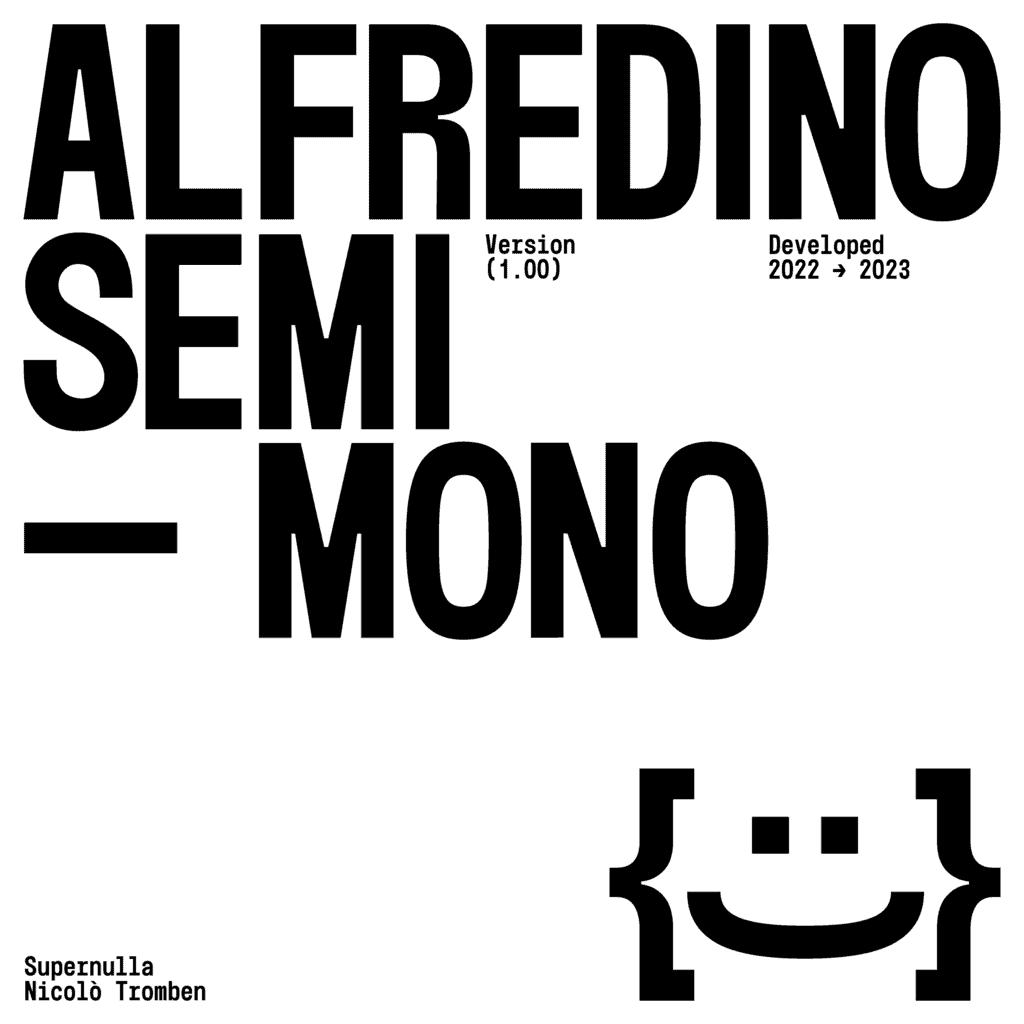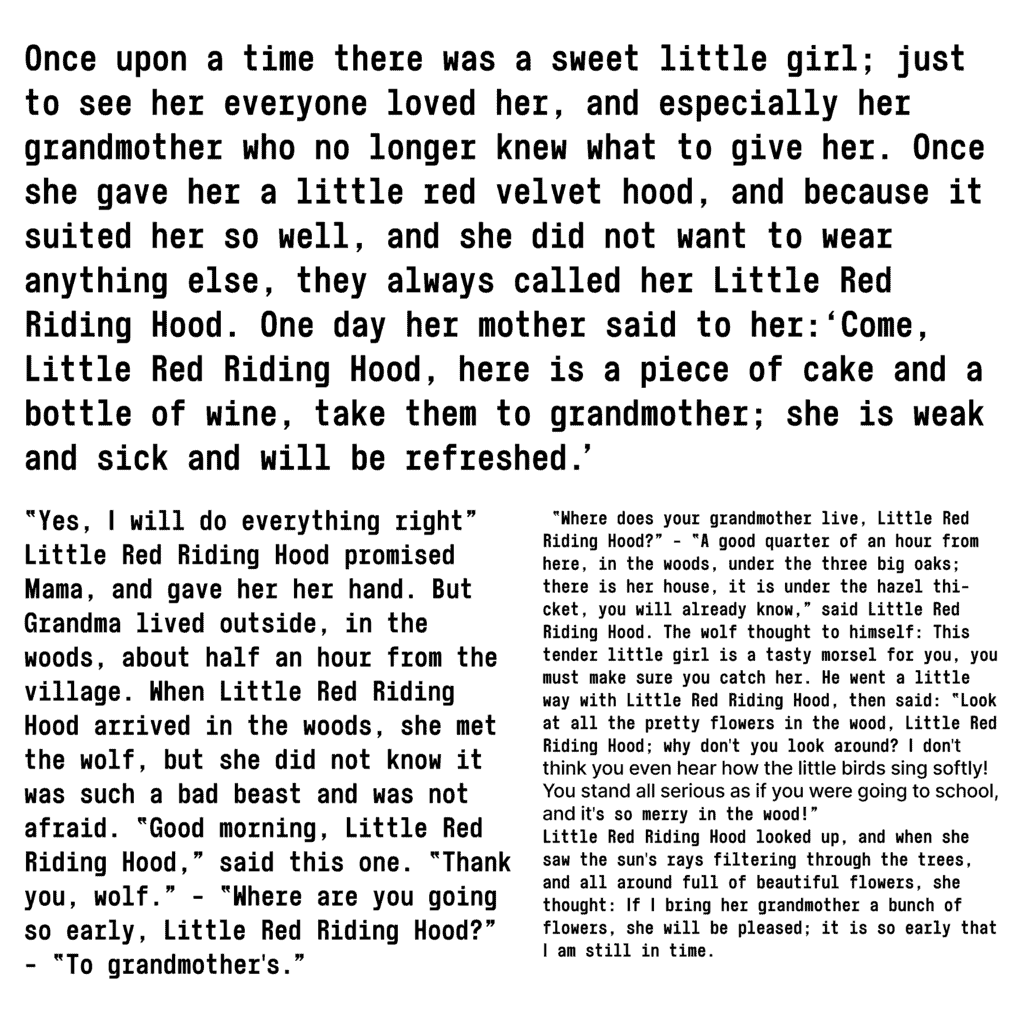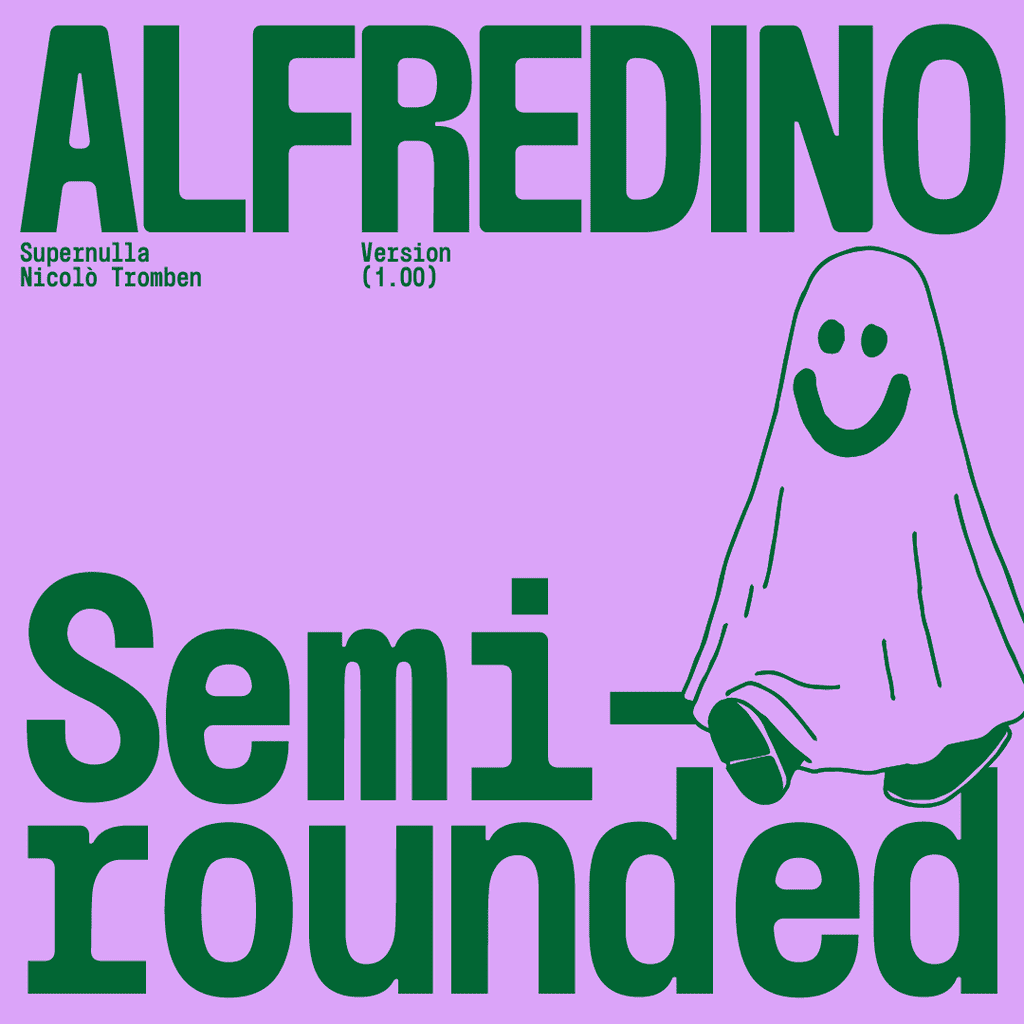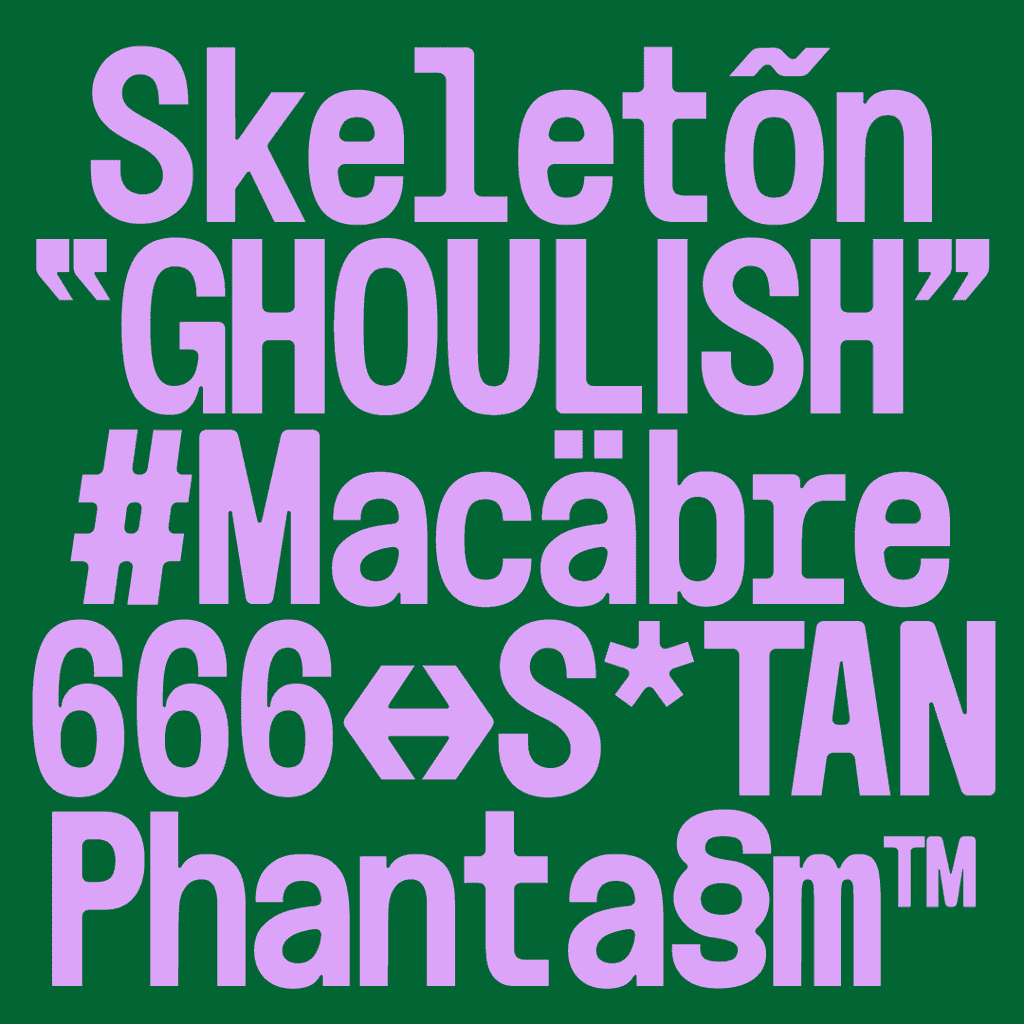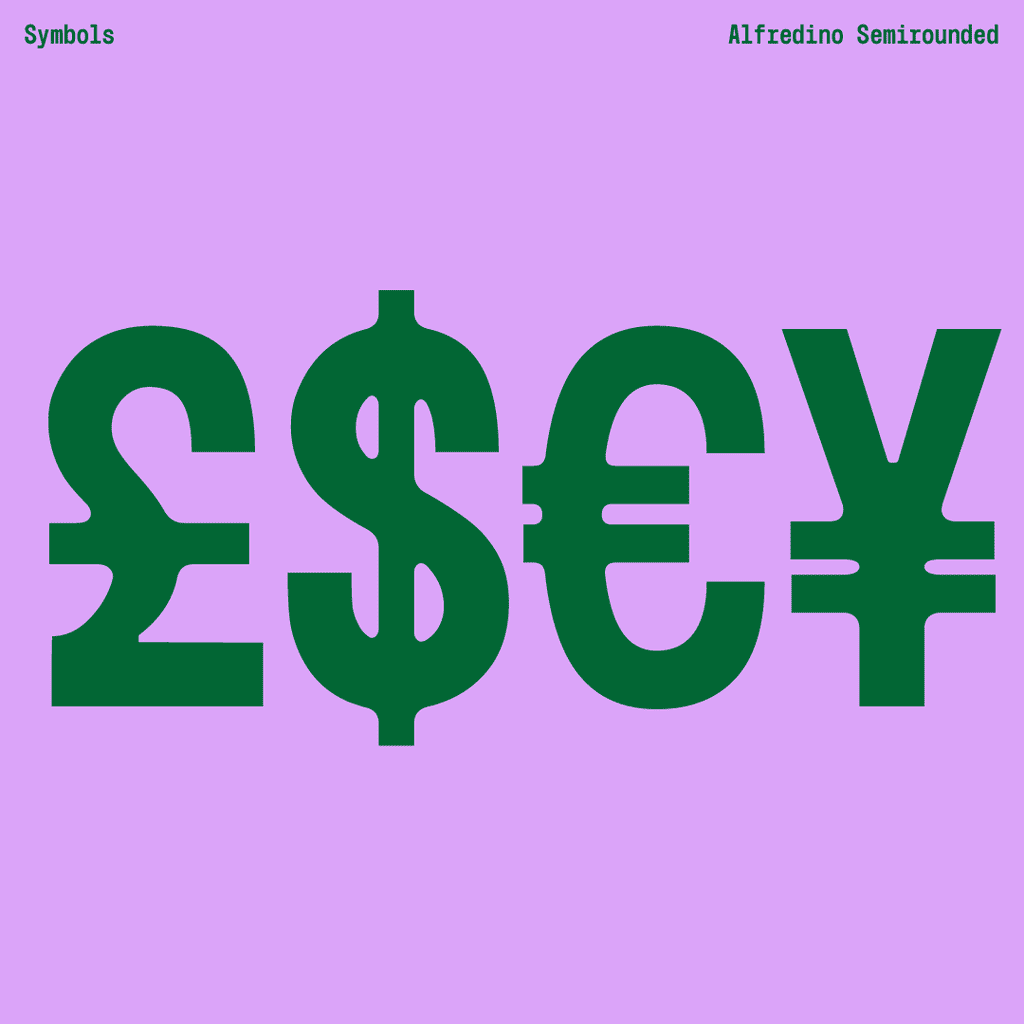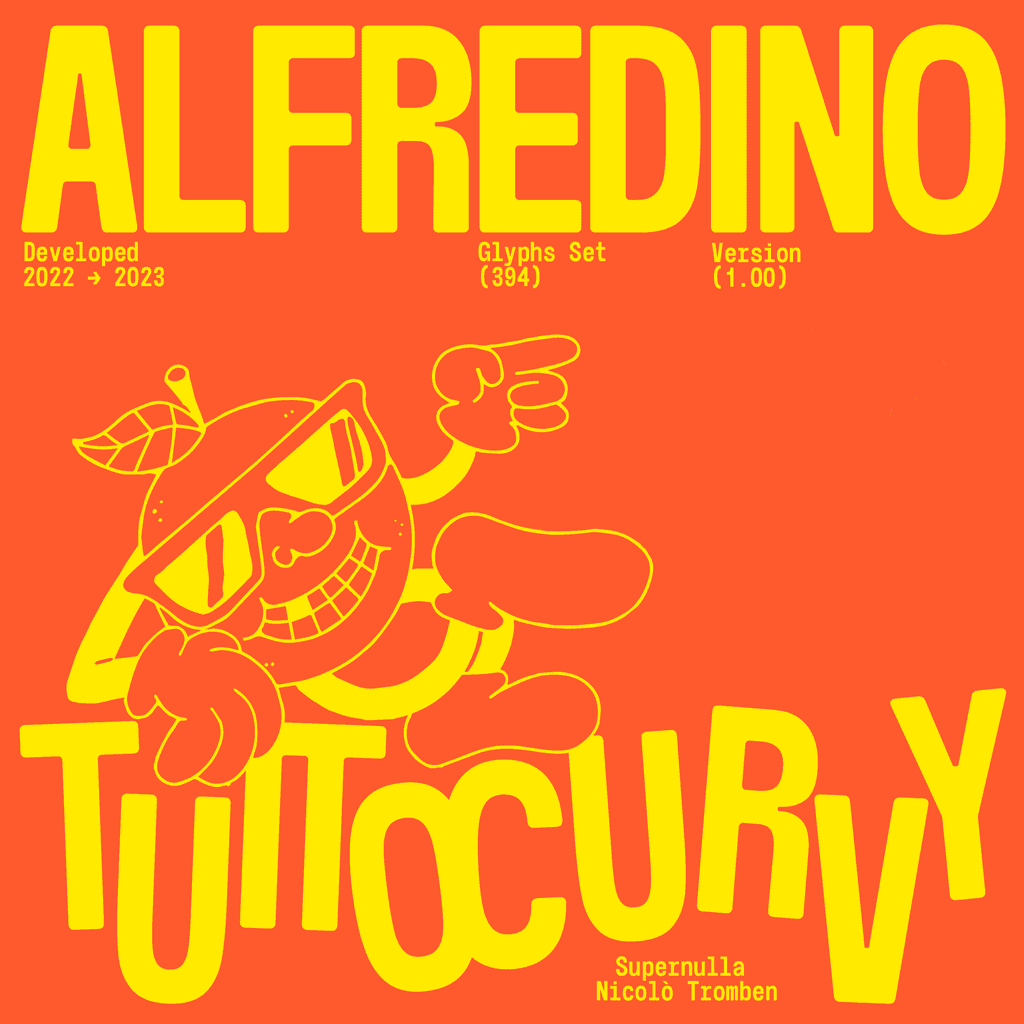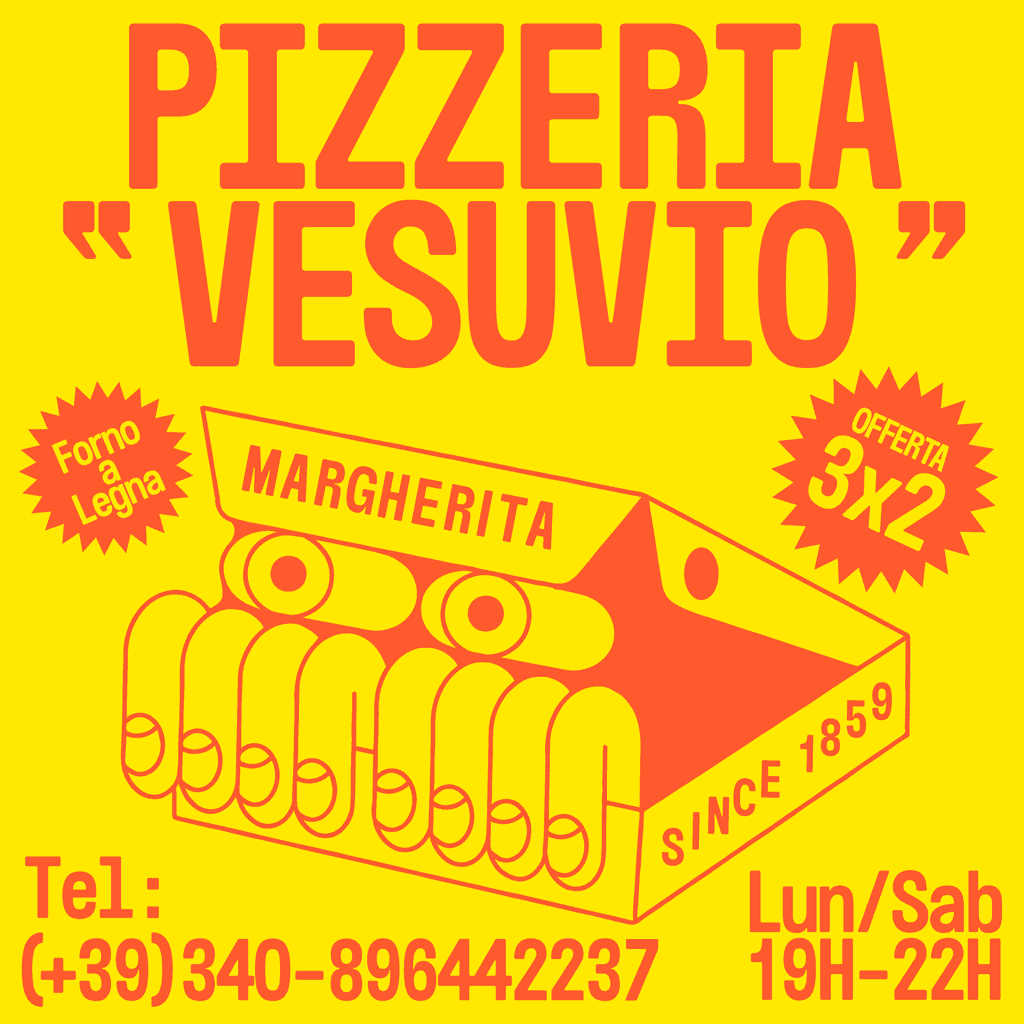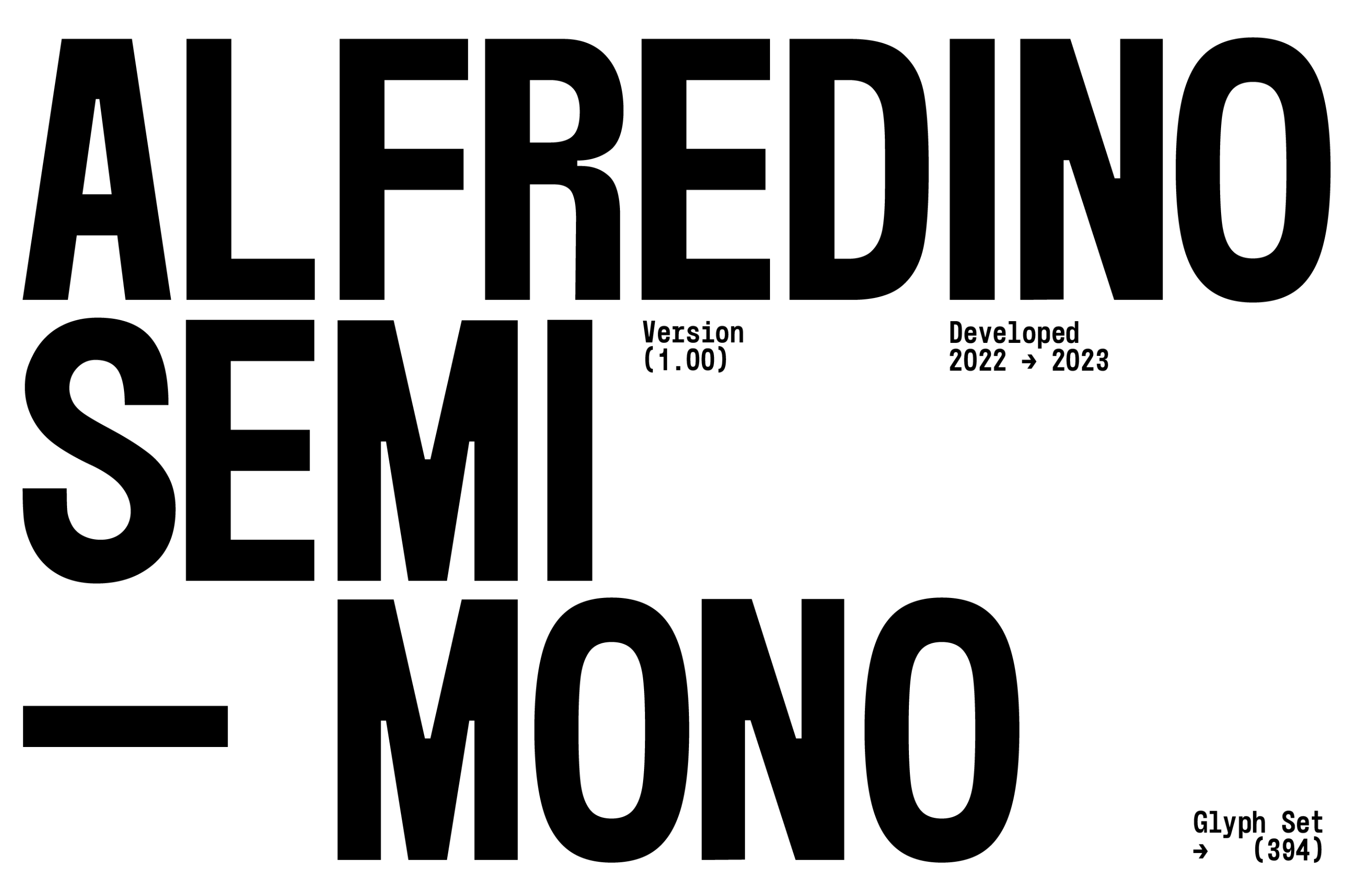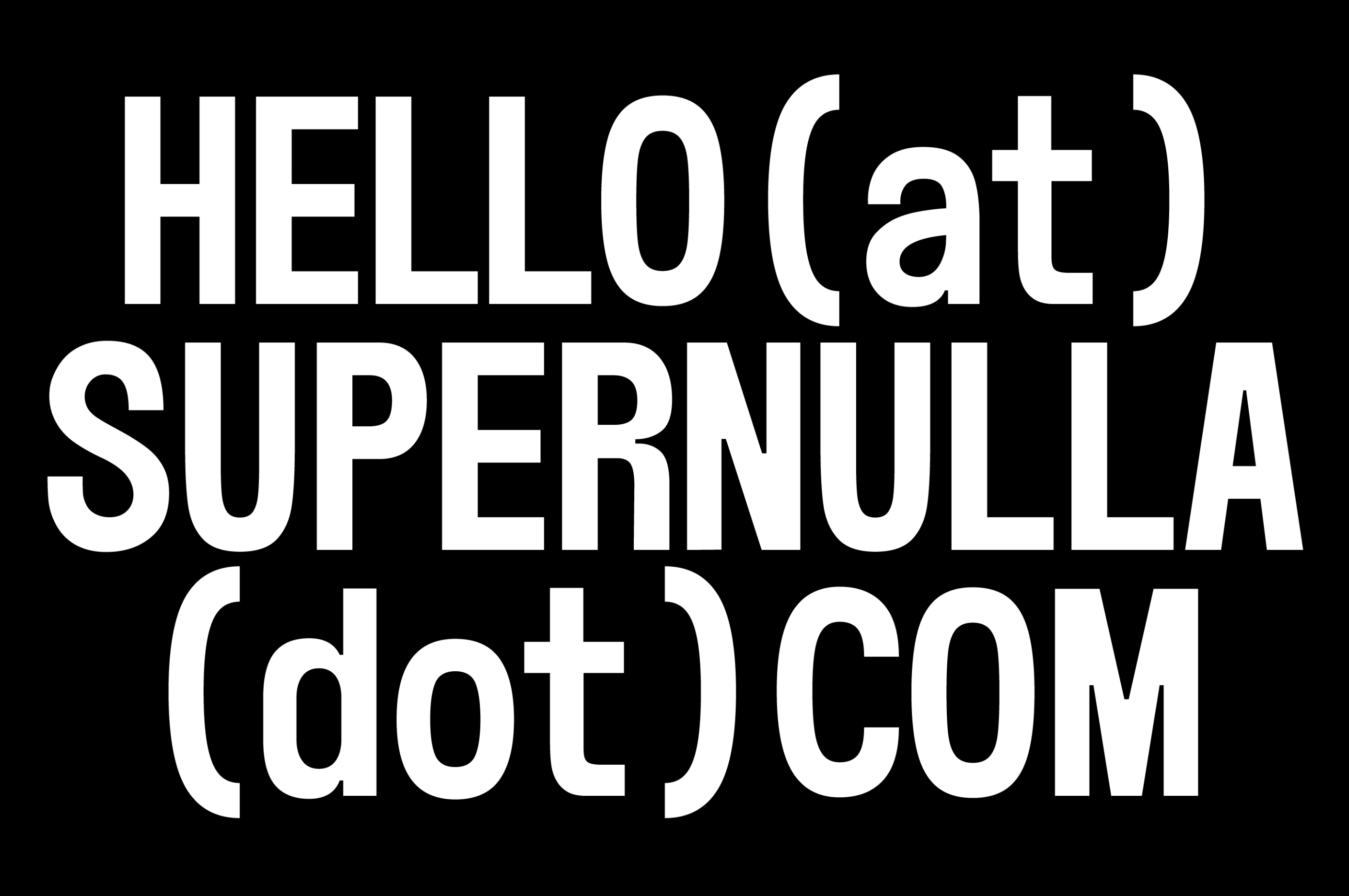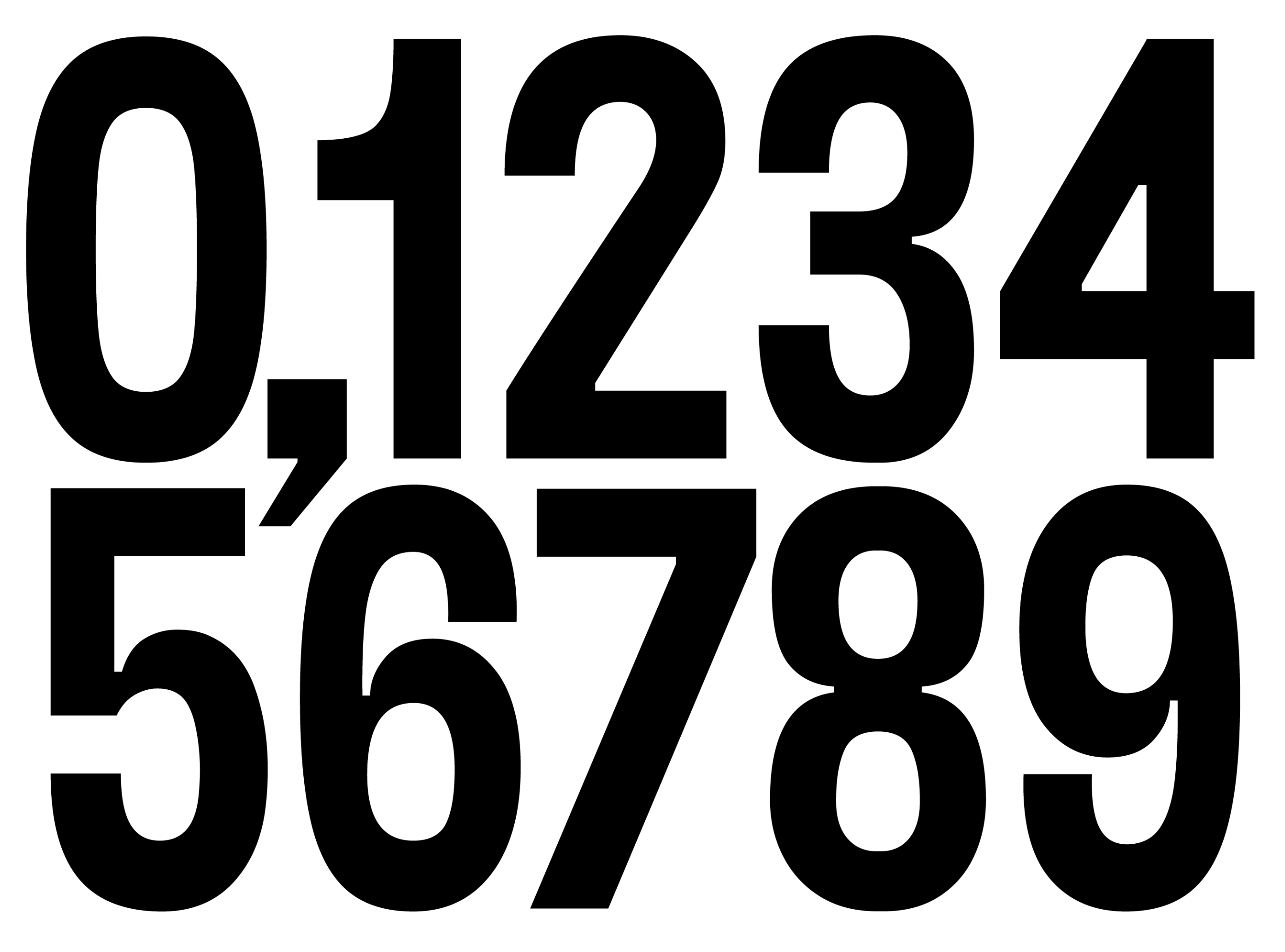
Alfredino Semimono
Supernulla
Alfredino Semimono is a typography project that embodies a dynamic, slightly vintage aesthetic while maintaining a clean, contemporary look and is equipped with three distinct styles.
The "Semimono" style is characterised by essential cleanliness and strong visual impact. The letters are well-defined, streamlined shapes without superfluous ornamentation.
The "Semirounded" style is distinguished by its strong contrasts between defined edges and bevelled seams. This gives the letters an interesting and dynamic look, adding a touch of originality to the typography.
The “Tuttocurvy” style is playful and informal, with rounded, flowing shapes. This style is perfect for projects involving interactions with illustration.